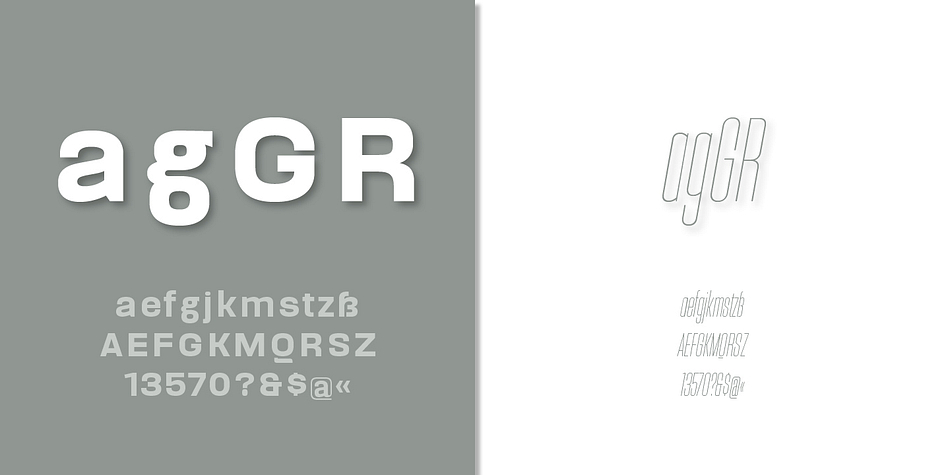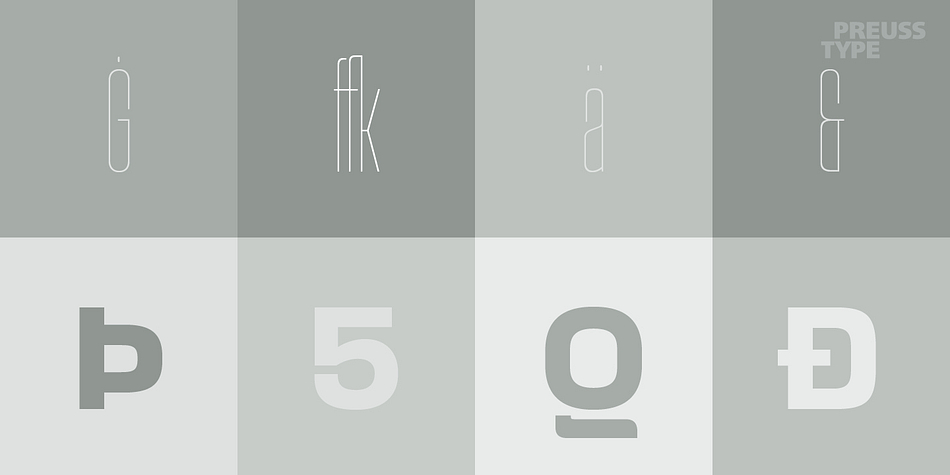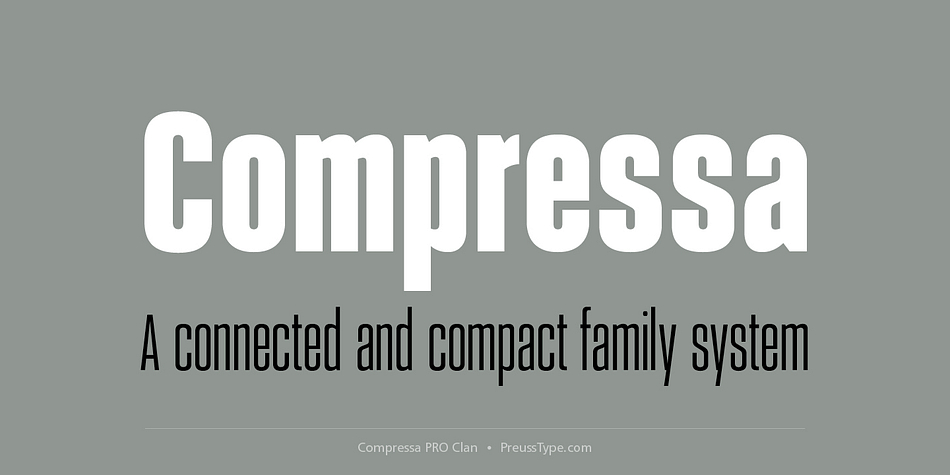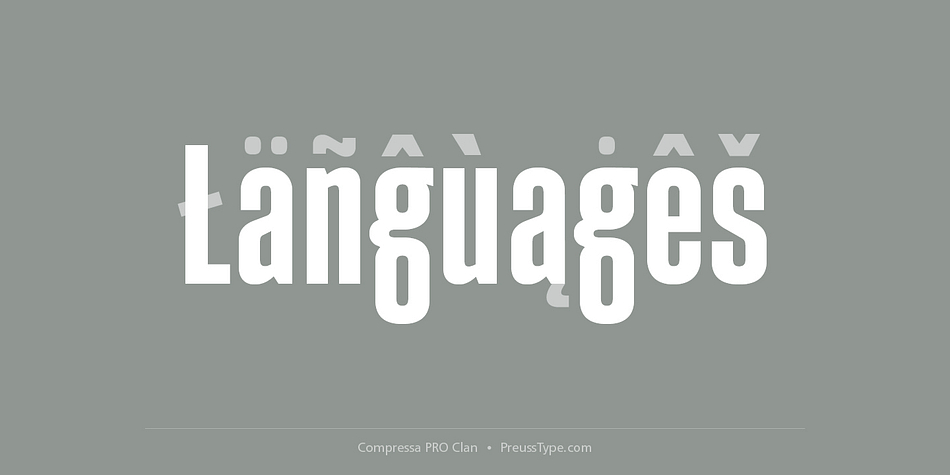
Compressa PRO is a display sans font family. This typeface has eighty styles and was published by preussTYPE.
The Compressa typeface family combines a huge spread of weights and widths that is otherwise very difficult to find. So you can choose from a total of 80 single cuts which style suits you best.
The entire clan is divided into five widths, each consisting of 16 individual sections with standardized weights (8 upright and 8 italics), whereby the width of the stems is identical for the weights. Only the width of the styles differs… A very well thought-out, modern font system.